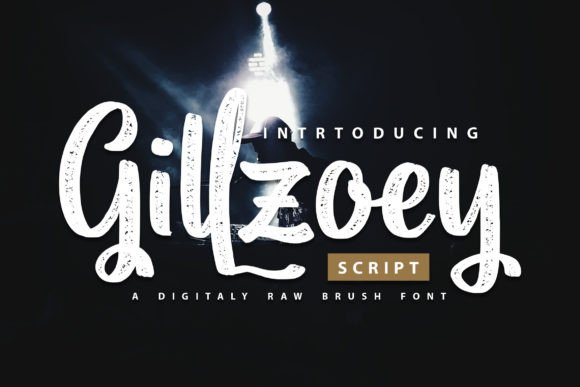
Unleash Your Creativity with Gillzoey: The Enchanting Script Font for Cover Designs
Embark on a captivating journey of artistic expression with Gillzoey, a mesmerizing script font crafted to elevate your cover designs to breathtaking heights. Each letter dances across the page like a delicate brushstroke, carrying a story of elegance and sophistication.
Immerse yourself in the world of Gillzoey, where your imagination knows no bounds. This font is a visual symphony, transforming your words into captivating melodies. Its graceful curves and playful flourishes add a touch of whimsy and charm to any project, leaving a lasting impression on your audience.
As a designer, you understand the power of visual impact. Gillzoey grants you the creative freedom to craft covers that captivate and entice. Its beautiful ligatures and alternate characters add depth and dimension to your designs, creating a visual feast that draws the eye and sparks curiosity.
Gillzoey is more than just a font; it's an artistic tool that empowers you to make a statement. Whether you're designing book covers, posters, logos, or invitations, Gillzoey seamlessly adapts to your vision, enhancing your designs with a touch of magic.
Don't settle for ordinary fonts. Embrace the extraordinary with Gillzoey and watch your creative ideas come to life. Its ease of use and PUA encoding make it accessible to designers of all skill levels, ensuring that your design journey is effortless and enjoyable.
Elevate your designs to the realm of the extraordinary with Gillzoey. Experience the joy of creating covers that resonate with your audience, leaving an indelible mark on their minds. Download Gillzoey today and unlock a world of limitless creative possibilities.